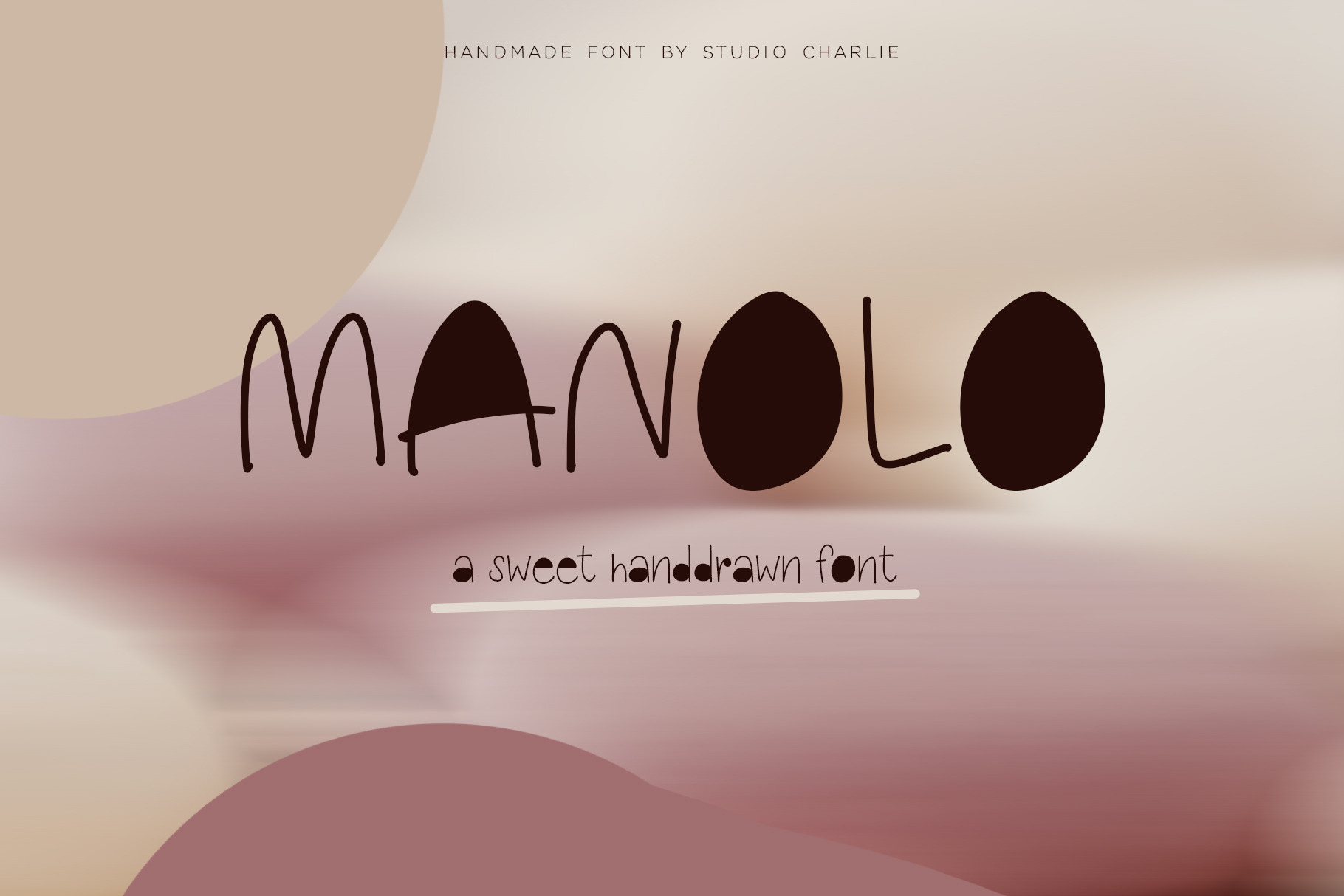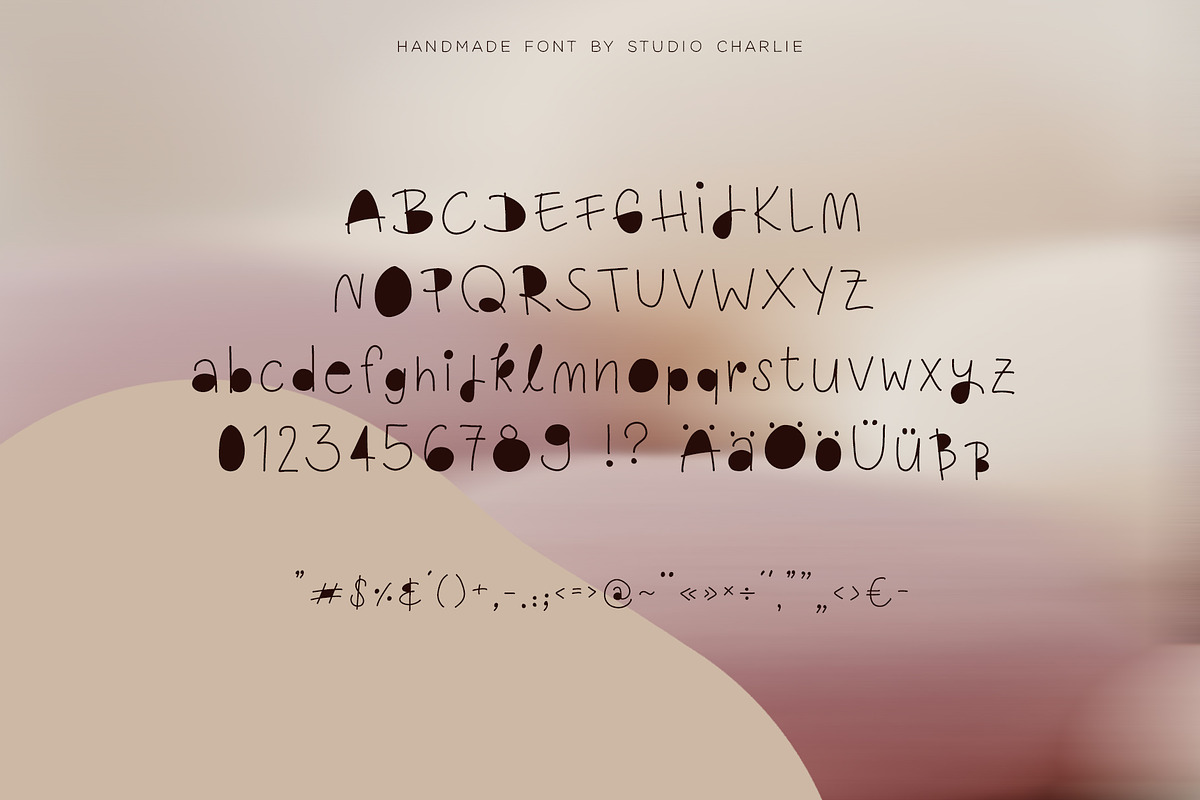
Manolo - A Cheerful Funny Font
Manolo is a cheerful and funny doodle font that supports English and German characters. The OTF font file comes with a full alphabet of both lower- and uppcase letters as well as numbers and punctuation. Some extra glyphs have been added for fun writing.
This font reminds me of a certain spanish guy who has the warmest smile one can give you.